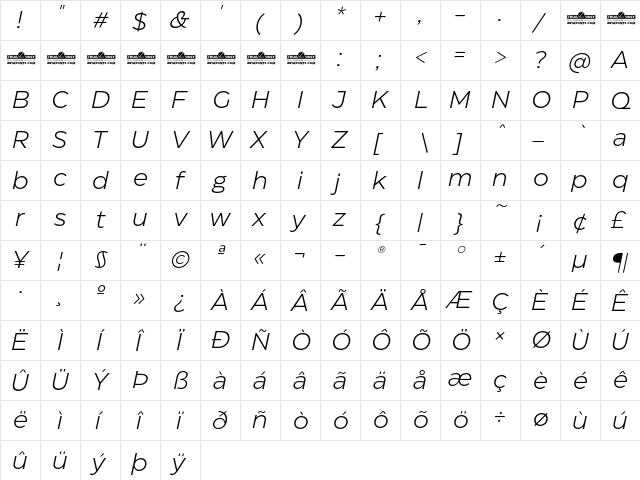
Eastman Trial Regular Offset Italic
Design Context for Eastman Trial Typeface
Eastman Trial is a composed and adaptable typeface that performs quietly and consistently across a wide range of design contexts. The slanted form adds forward momentum and visual energy.
Pro Tip: Try Eastman Trial for annotation and caption copy alongside an upright companion — the contrast in angle creates a dynamic but ordered typographic system.